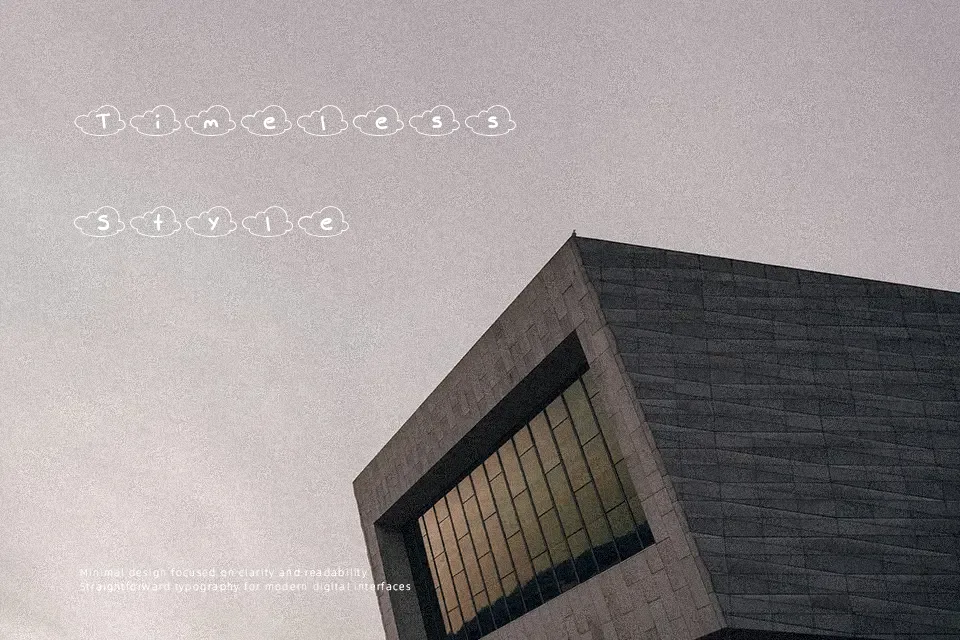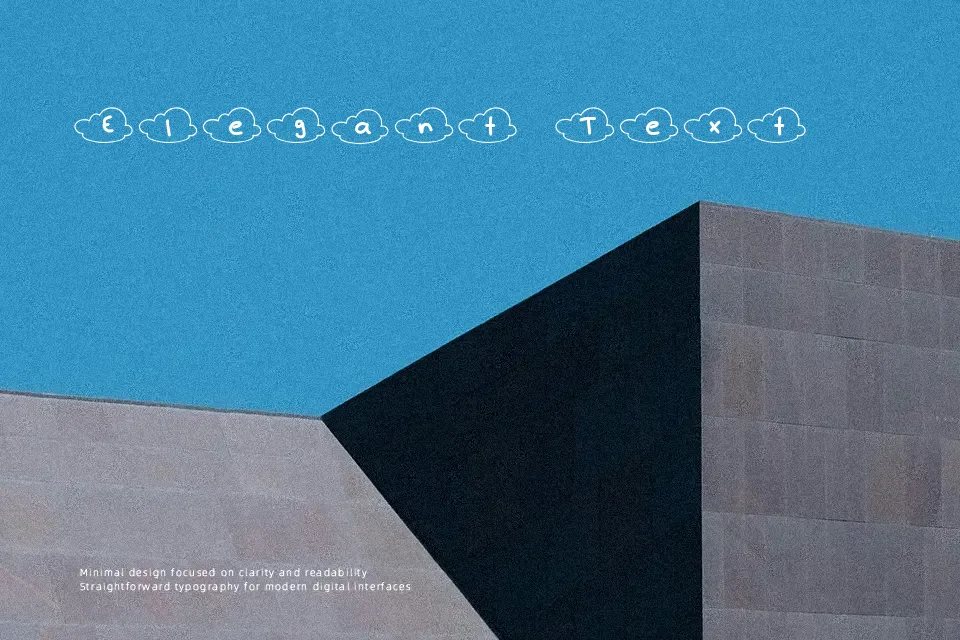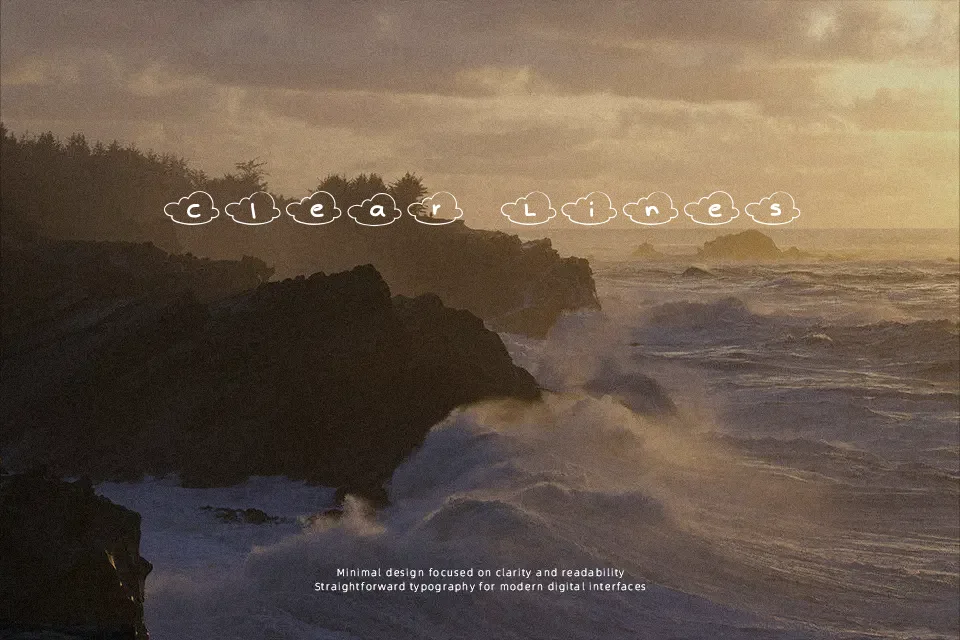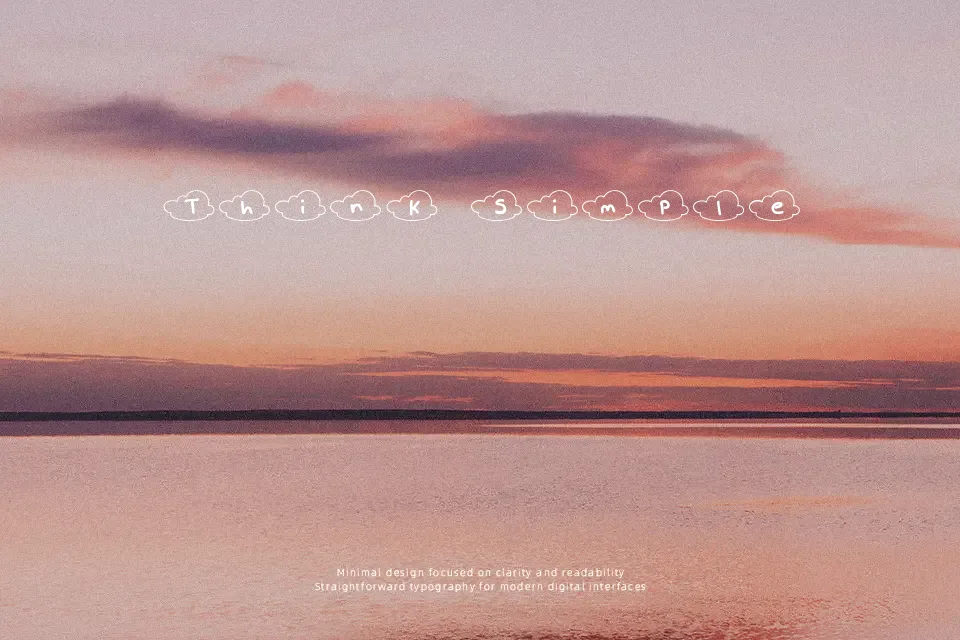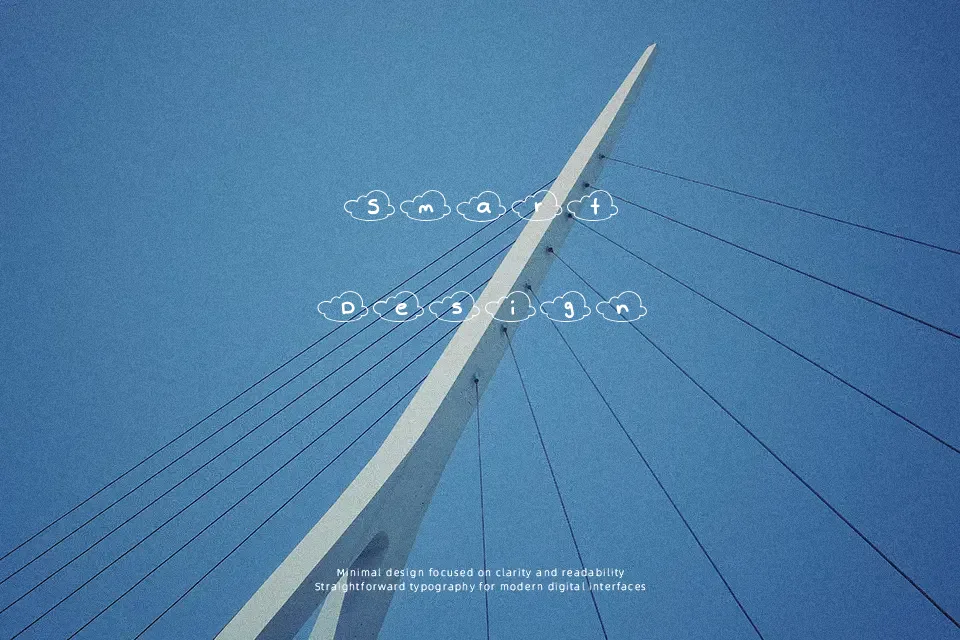
Nubes Font
Designed by Mielybooks
Nubes Font uses inflated cloud-shaped outlines that give each character a soft, cartoon-like presence. The strokes appear broad and evenly weighted, while rounded outer edges make the alphabet feel more illustrative than typographic. Spacing between the forms is fairly open, helping individual letters remain recognizable in large headings and short words. Uppercase and lowercase characters maintain the same bubbly visual language, so mixed-case titles stay cohesive. It works best when the lettering has room to breathe, such as on party cards or playful banners. At smaller sizes, the cloud contours can blur together, making it a poor choice for dense copy or detailed labels.
Best For: children’s party invitations,playful poster headlines,birthday banners,short social media graphics
Perfect for invitation, kids, and poster, with a cute and cartoon style.